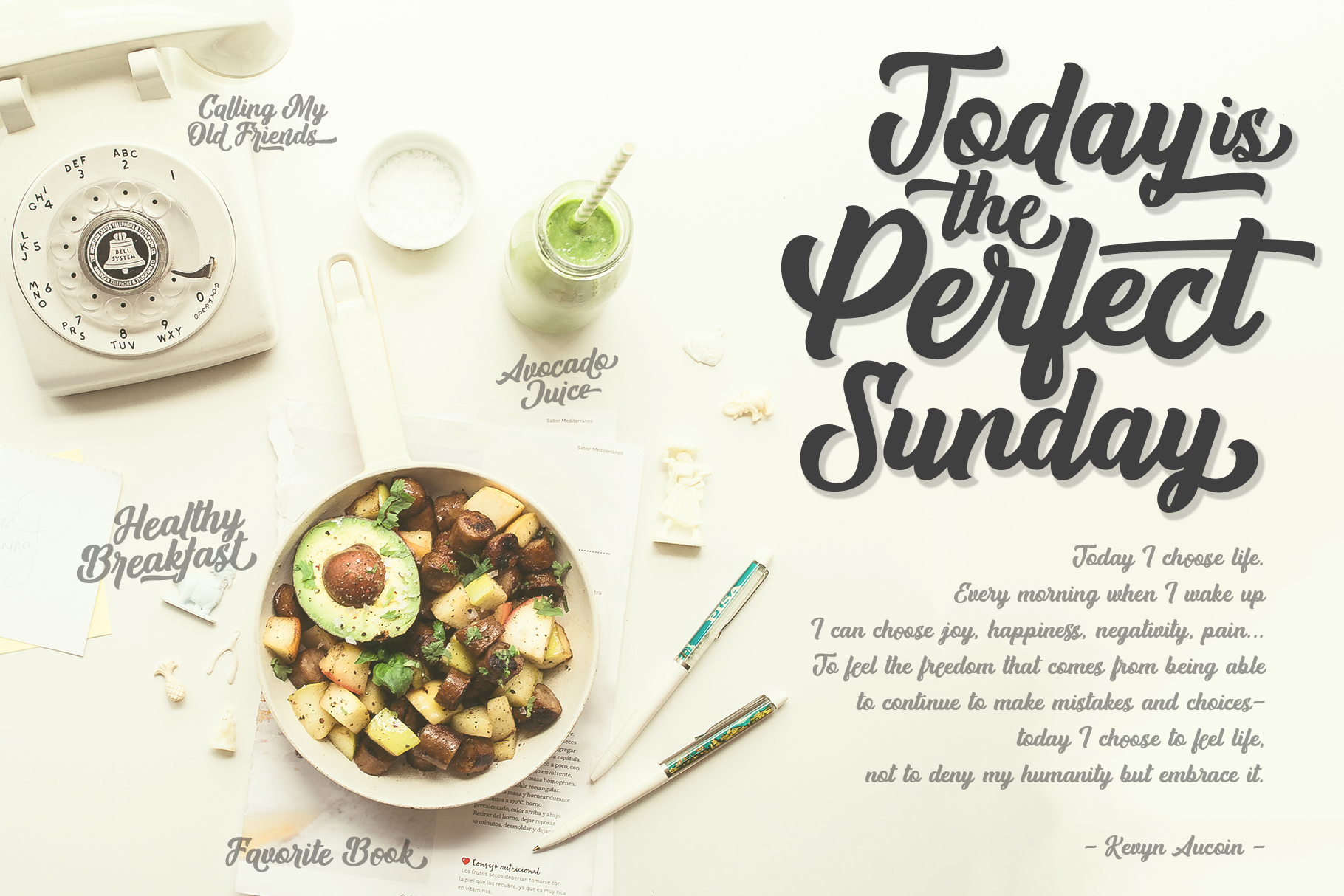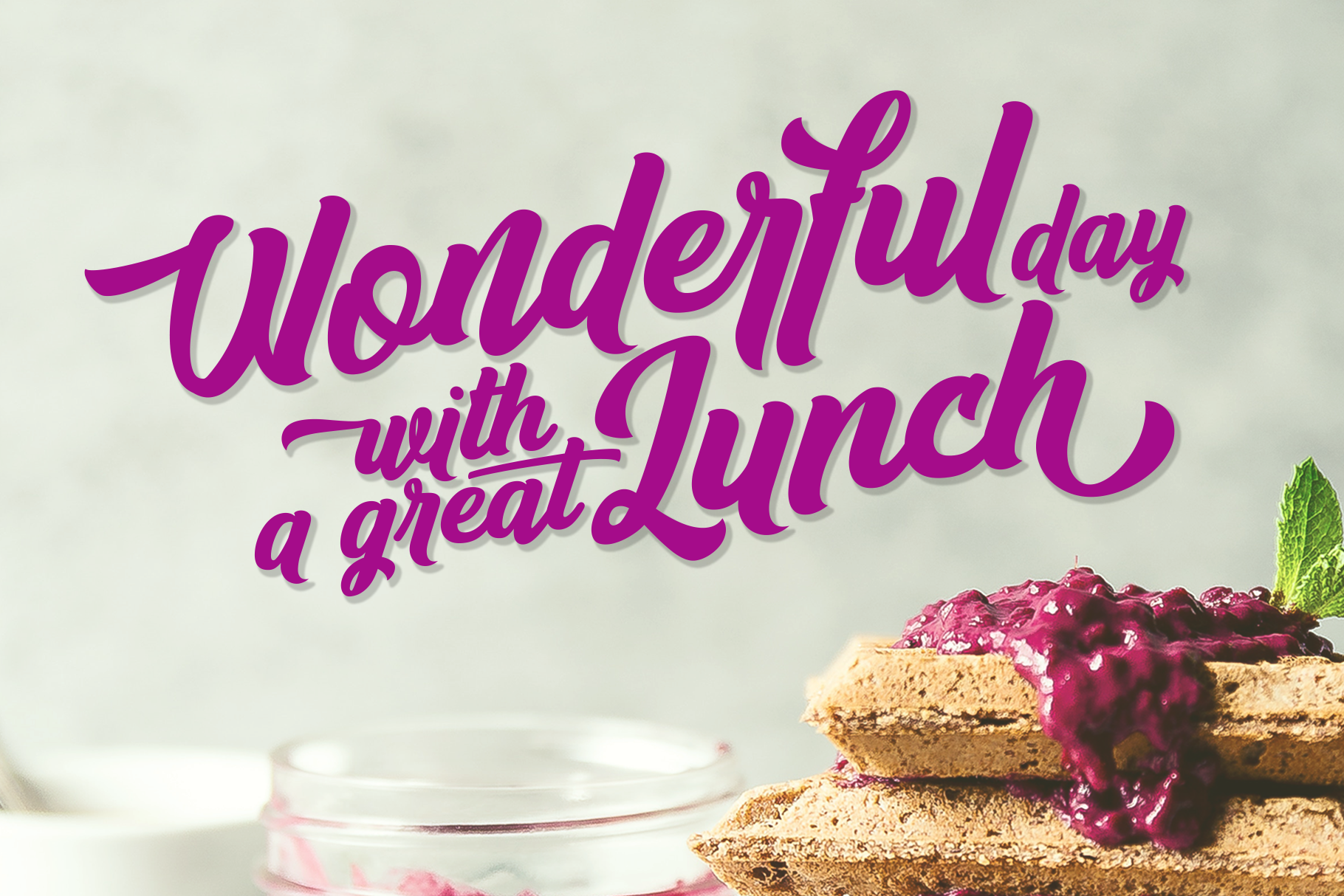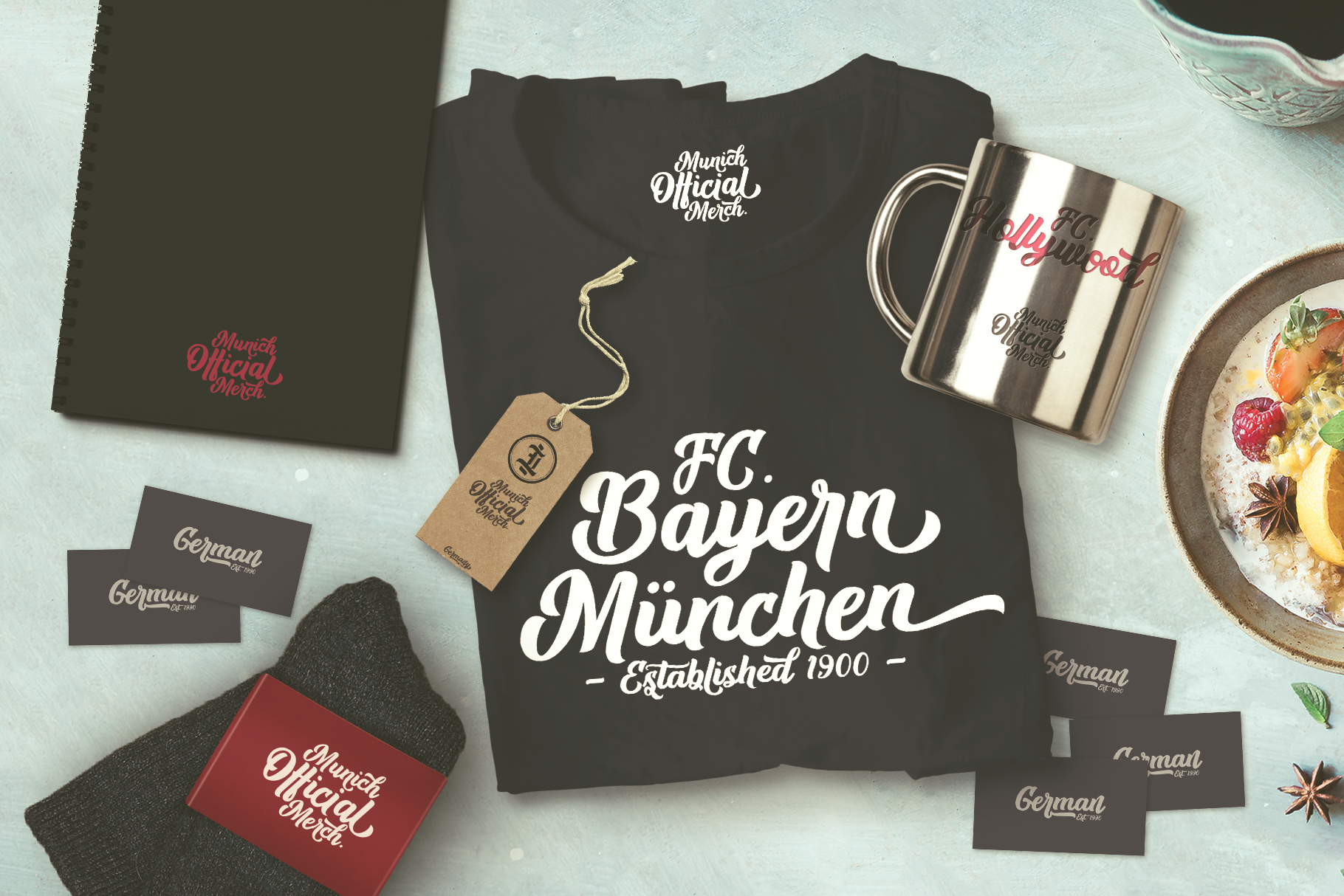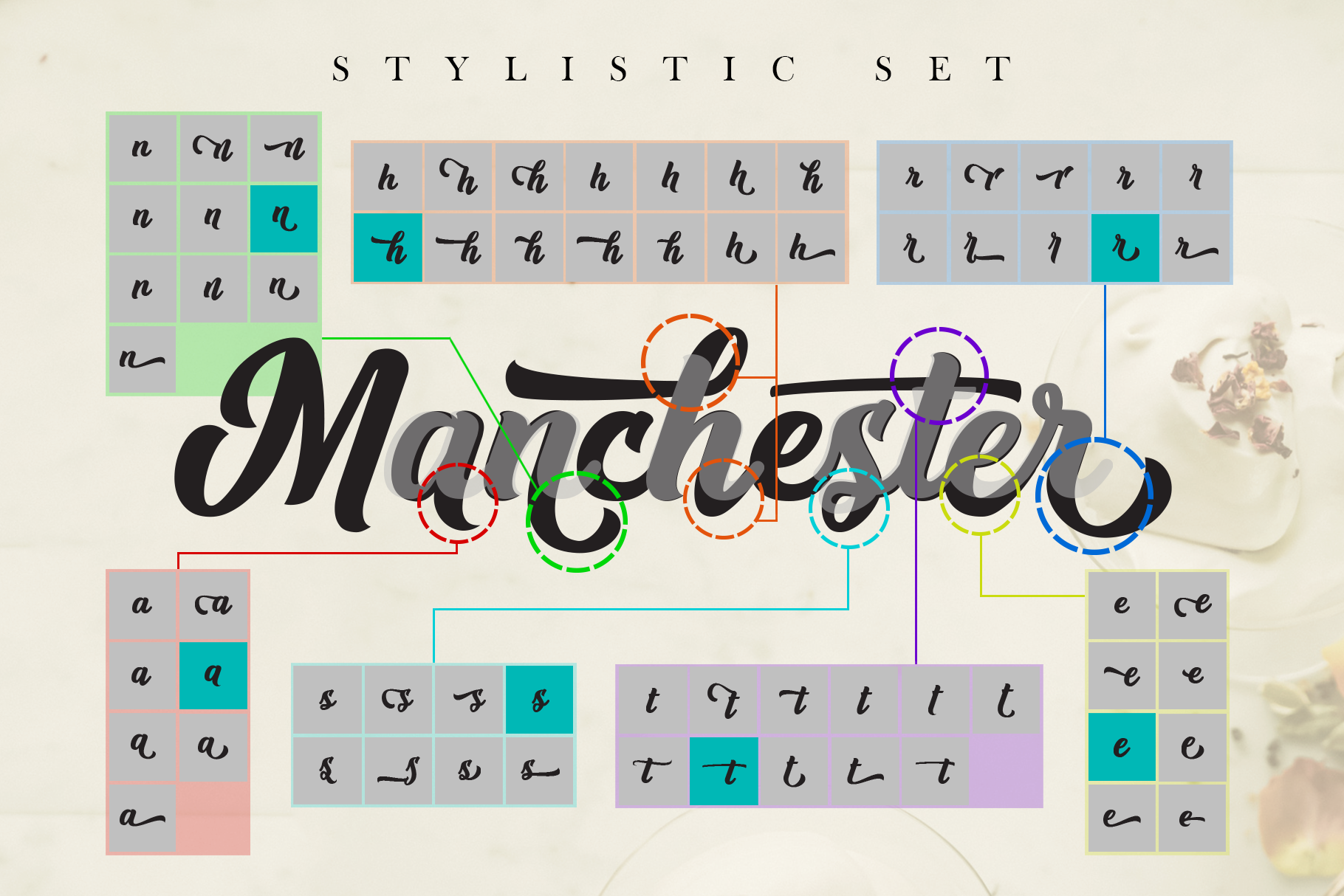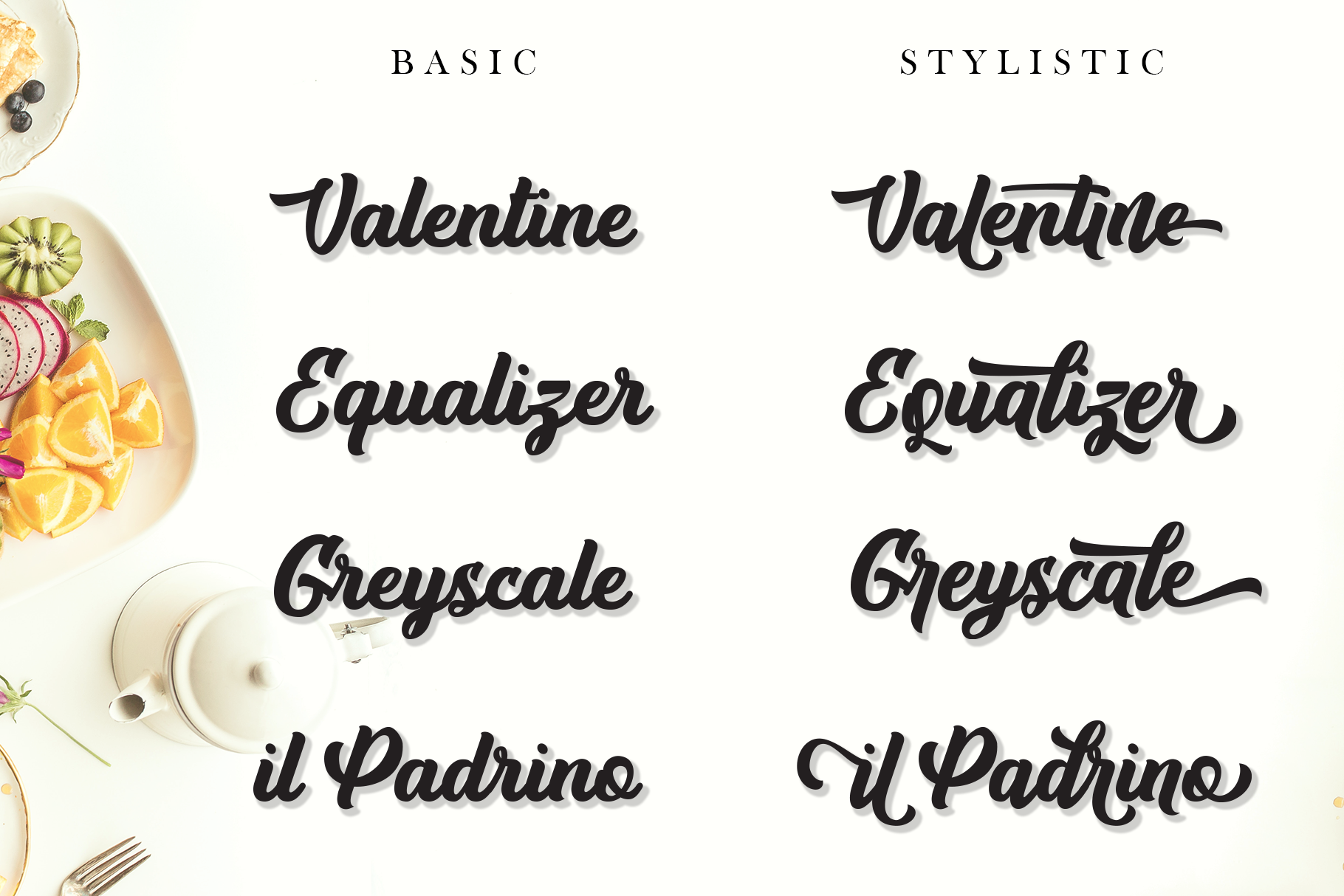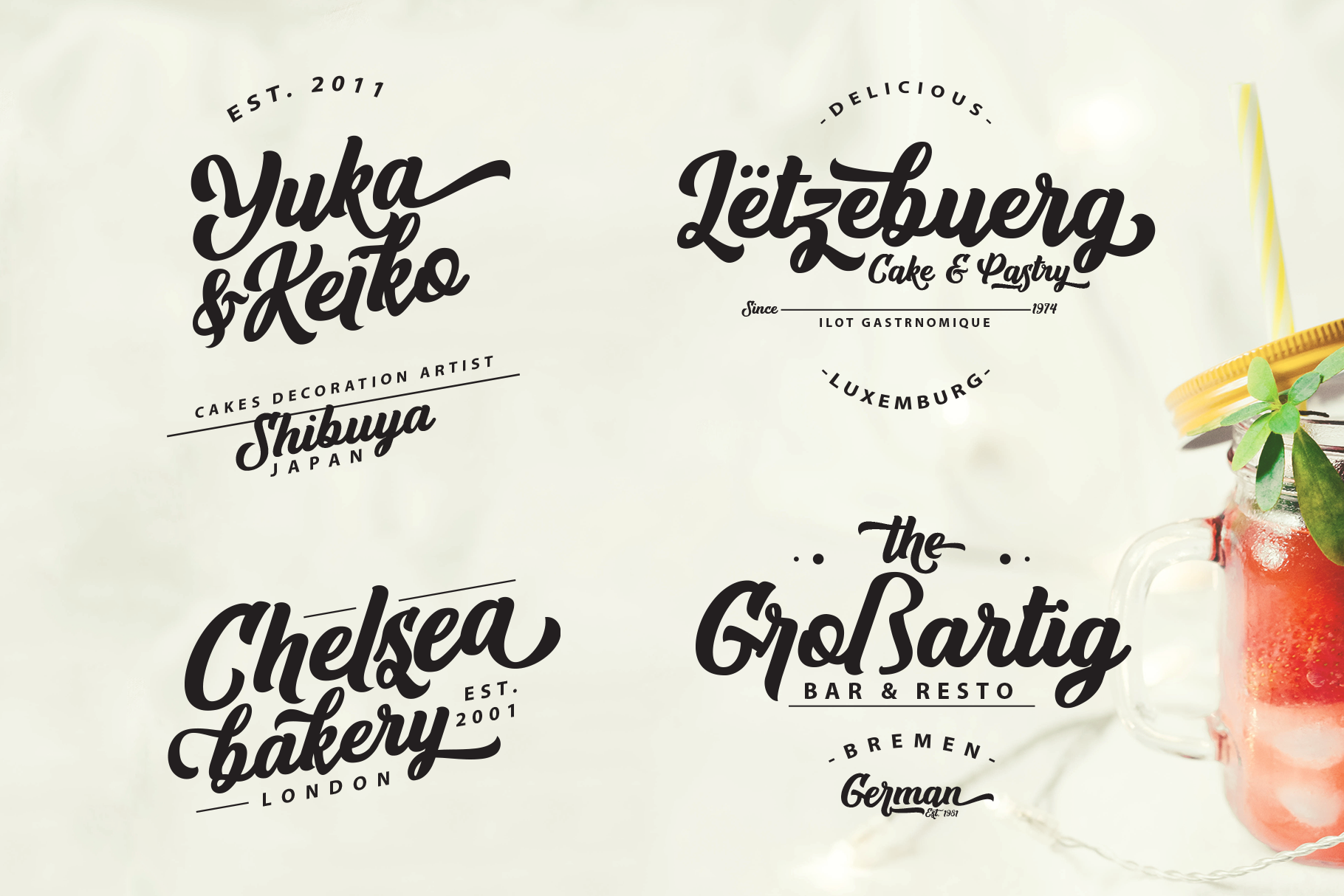
The Asthenia Font: A Game-Changer for Your Design Projects
I’ll never forget the time I was working on a project for a client who needed a font that would make their brand stand out. I had spent hours browsing through font libraries, but nothing seemed quite right. That was until I stumbled upon the Asthenia font. It was love at first sight! ✨ The elegant lines, the sophisticated feel, and the versatility of this display font won me over, and I’ve been hooked ever since.
An Honest Review of Asthenia Font
• ✨ Stunning visuals: Asthenia is jaw-droppingly beautiful, with a unique design that adds a touch of elegance to any project.
• ✅ Versatility: This font is suitable for a wide range of applications, from branding and advertising to packaging and digital media.
• 💪 Robust and well-weighted: Asthenia packs a punch and can handle even the most demanding design needs.
While Asthenia is an amazing font, there are a few things to keep in mind: 🤔
• ⚠️ Limited use in body text: Due to its elegant and cursive nature, Asthenia might not be the best choice for long blocks of body text.
• ⚠️ Requires careful kerning: As with any font, kerning is crucial to ensure Asthenia looks its best.
3. Experiment with OpenType features, such as ligatures and stylistic alternates, to add visual interest to your design.
4. Explore the various glyphs and stylistic alternates to add depth and personality to your design.
The Backstory of Asthenia Font
According to the font’s creators, Asthenia was inspired by the elegant lines and curves of ancient Greek architecture. The font’s design is meant to evoke a sense of sophistication and refinement, making it perfect for high-end branding and design projects.
What is Asthenia font best used for? Asthenia is a display font, best used for headlines, titles, and short blocks of text.
Does Asthenia support OpenType features? Yes, Asthenia supports OpenType features, including ligatures, stylistic alternates, and glyphs.